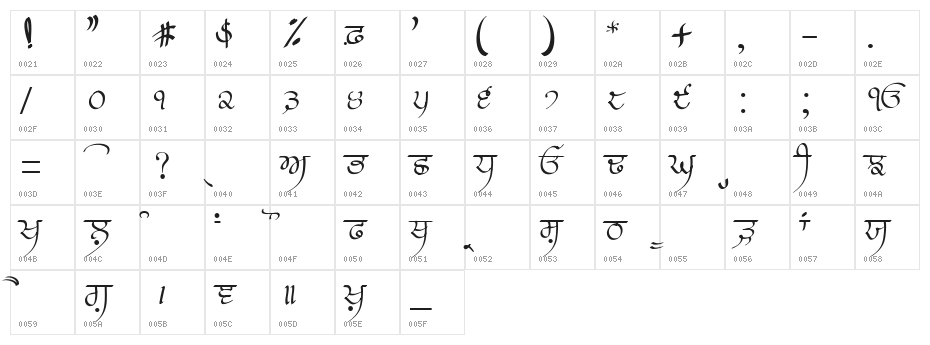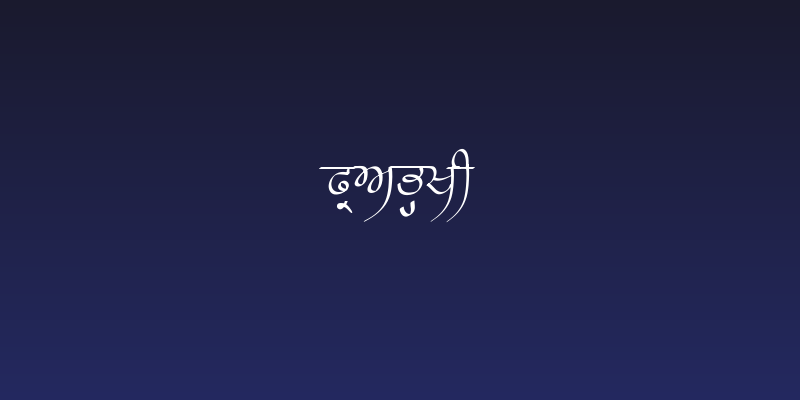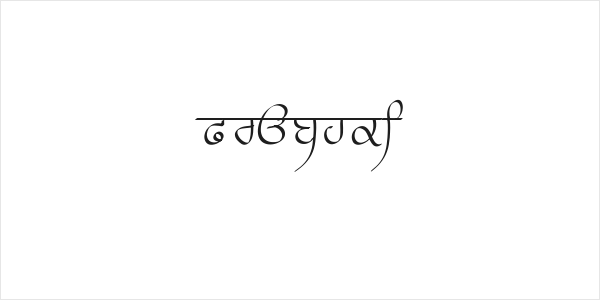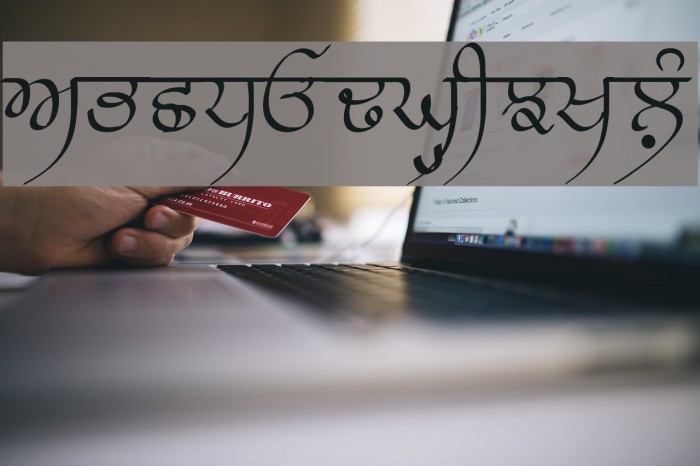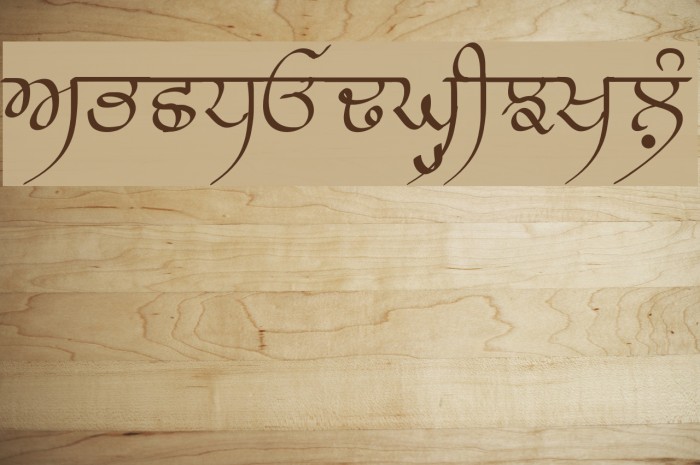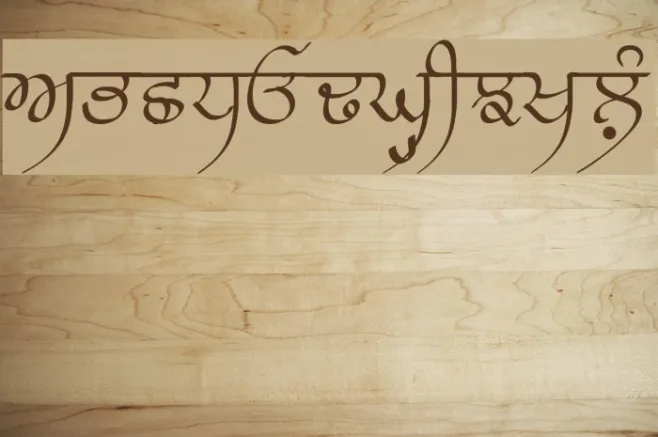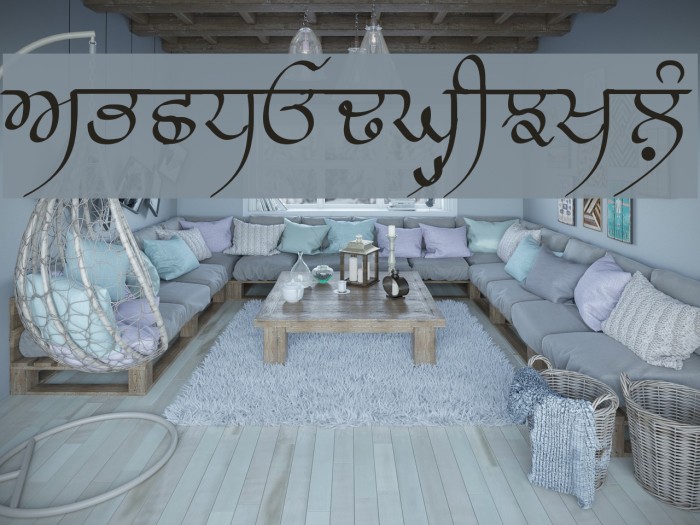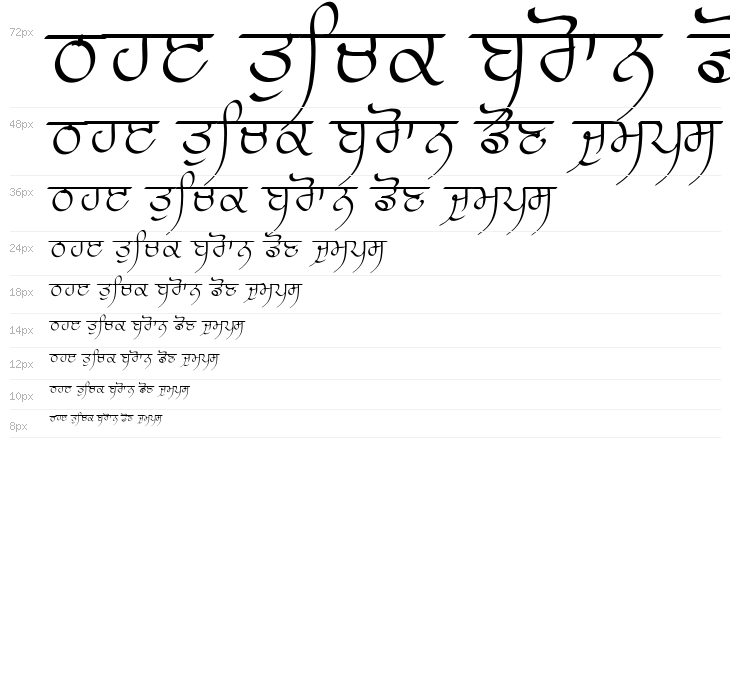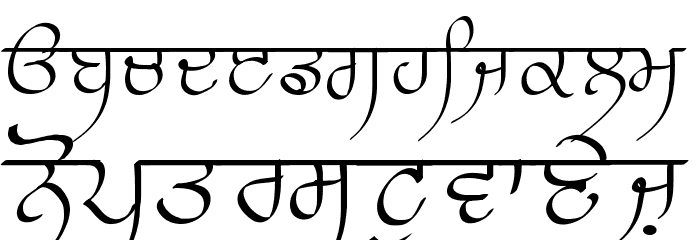
Prabhki Font
Prabhki Description
This font features a flowing, calligraphic style with elegant curves and a traditional aesthetic. The characters are intricately designed, showcasing a blend of thick and thin strokes that add a dynamic quality to the text. The script is reminiscent of handwritten calligraphy, with a distinct cultural flair that is both artistic and sophisticated. The numerals and special characters maintain the same stylistic elements, ensuring consistency throughout the font. The overall appearance is graceful and refined, making it suitable for projects that require a touch of elegance and tradition.
| Overall Style | Traditional |
| Use Case | Decorative text, Invitations, Cultural projects |
| Proposed Projects | Ideal for wedding invitations, cultural event posters, traditional artwork, and decorative signage. |